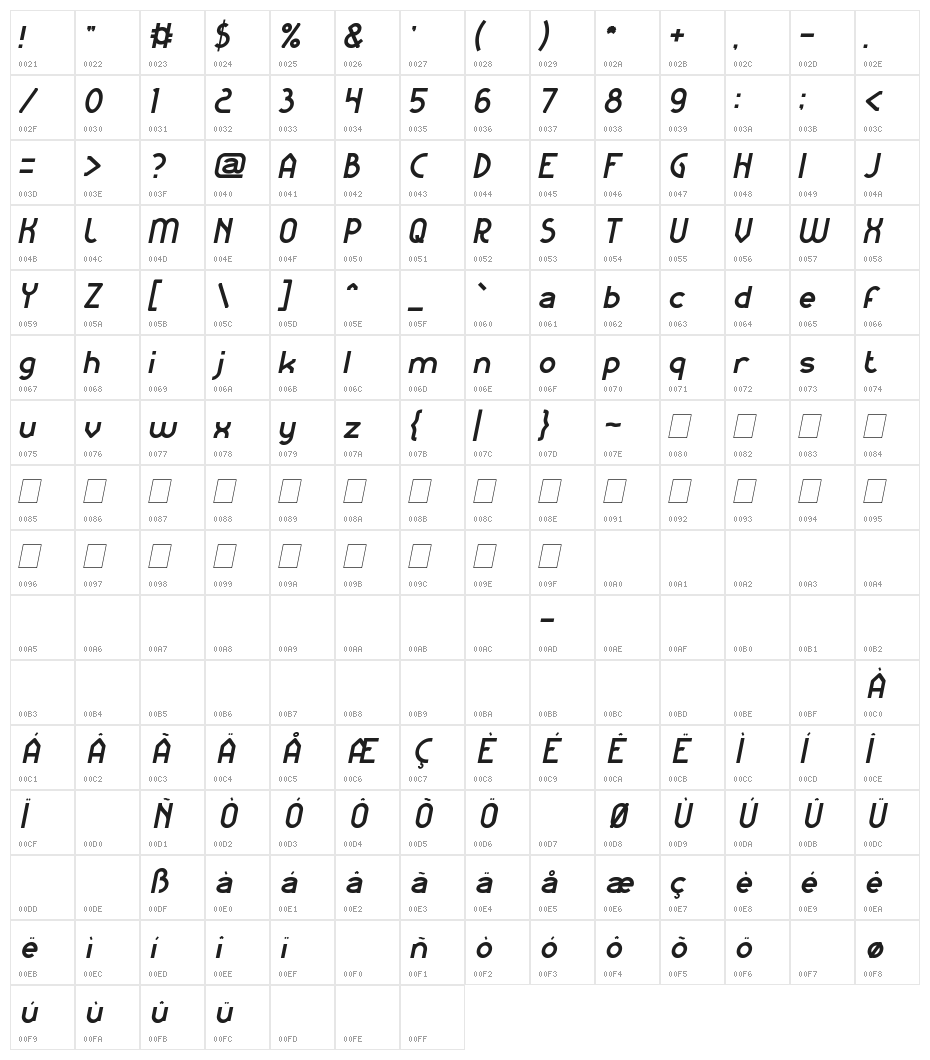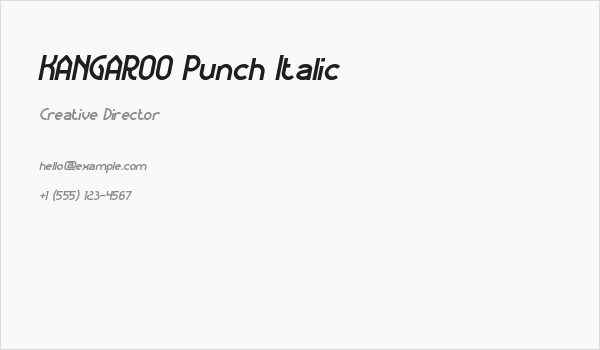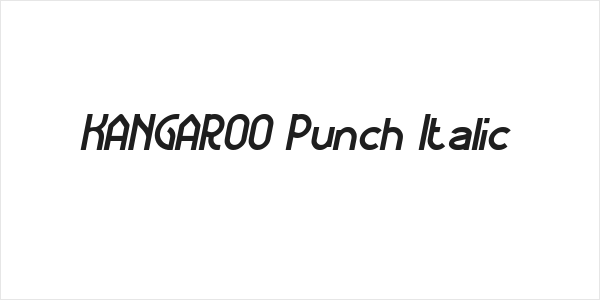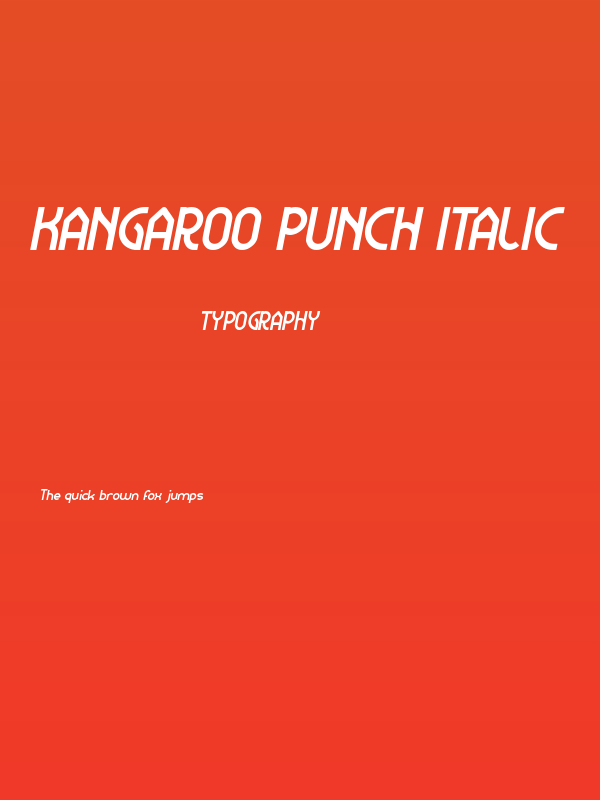
KANGAROO Punch Italic Font
KANGAROO Punch Italic Description
This font features a dynamic and energetic style with a forward-leaning italic slant, giving it a sense of motion and speed. The characters are bold and slightly condensed, with smooth curves and sharp angles that create a modern and sleek appearance. The uppercase letters are tall and commanding, while the lowercase letters maintain a consistent flow, enhancing readability. The numerals are distinct and clear, matching the overall boldness of the font. Special characters are well-integrated, maintaining the font's cohesive design. This font is ideal for projects that require a contemporary and assertive look.
| Proposed Projects | Ideal for branding, sports team logos, dynamic posters, and modern advertising campaigns. |